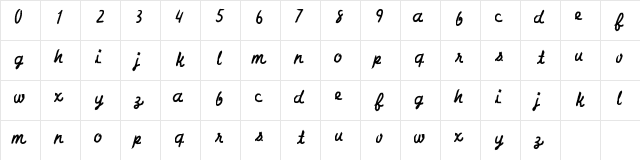
CharcoalScript Regular
| Foundry | Xerographer Fonts |
| Designer | Max Infeld |
Design Context for CharcoalScript Typeface
CharcoalScript brings a calligraphic fluidity to the page — its connecting strokes and expressive curves give it an unmistakably human quality.
Font Pairing: Combine CharcoalScript with a simple geometric sans for maximum contrast — the tension between flowing curves and clean structure is a classic typographic pairing.
Pro Tip: Use CharcoalScript for short runs of text — names, titles, or taglines. Extended body copy in script faces tires the eye quickly.